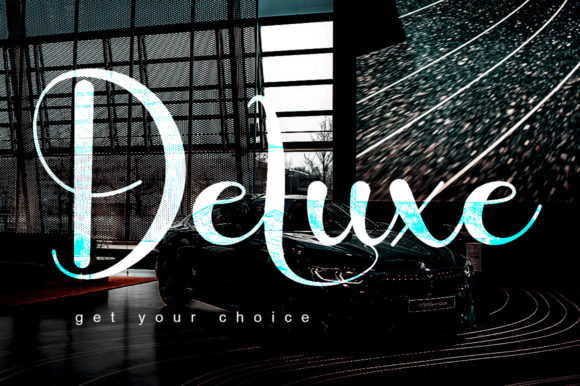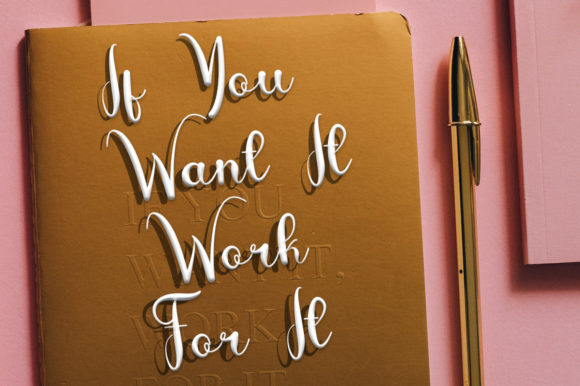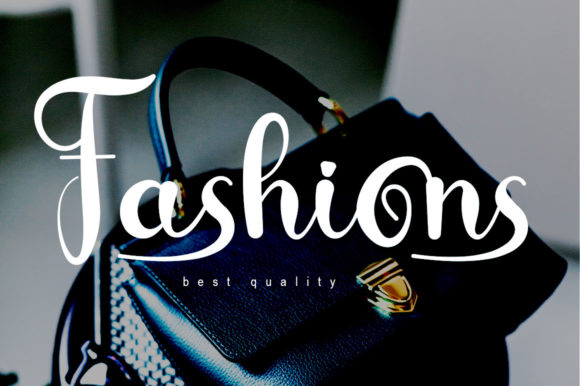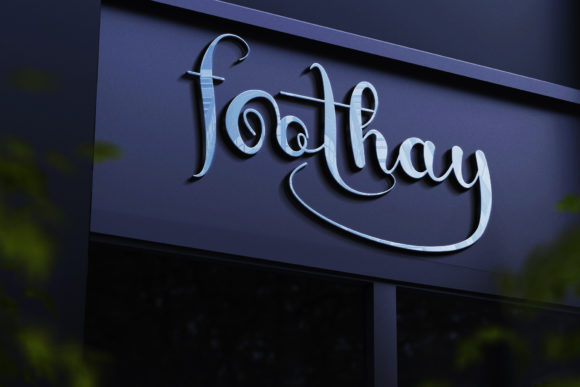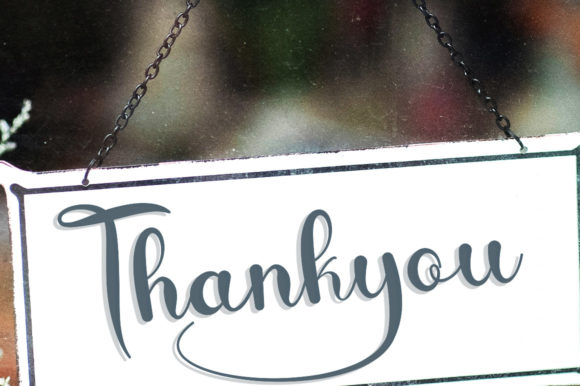
The Enchanting World of Flowers Font
I’ll never forget the time I was working on a wedding invitation project, and my client asked for a font that would make their special day feel like a fairytale. I scoured the internet, tried out countless fonts, but nothing seemed quite right. That was until I stumbled upon Flowers Font. This beautiful, handwritten script font instantly transported me to a world of romance and whimsy. In this article, I’ll share my love for Flowers Font, its features, and how to make the most of it in your designs.
A Personal Review of Flowers Font
So, what makes Flowers Font so special? Let’s dive into the good stuff! 😊
- ✨ Romantic and Whimsical: Flowers Font has a unique, enchanting quality that adds a touch of romance to any project.
- ✅ Versatile: From greeting cards to headlines, this font is perfect for a wide range of applications.
- 💫 Elegant and Refined: The font’s smooth, flowing lines make it perfect for designs that require a touch of sophistication.
Of course, no font is perfect, and Flowers Font has a few quirks to be aware of:
- 🤔 Limited Use in Small Sizes: Due to its intricate design, Flowers Font can become a bit tricky to read in very small sizes.
- ⚠️ Kerning Issues: Some users have reported kerning issues when using the font in certain design software.
The Story Behind Flowers Font
While the true story behind Flowers Font may be a mystery, it’s easy to imagine that it was created by a designer who loves romance, nature, and beauty. Perhaps the designer was inspired by a lush garden on a warm summer day, and the font was born from the intricate details of the flowers.
| Font Name | Flowers Font |
| Author | fahmistudio99 |
| What is Flowers Font best used for? | Flowers Font is perfect for designs that require a touch of romance and whimsy, such as wedding invitations, greeting cards, and headlines. |
| Is Flowers Font available in different languages? | Flowers Font may not support all languages, but it does include a range of glyphs and stylistic alternates to help you create unique designs. |